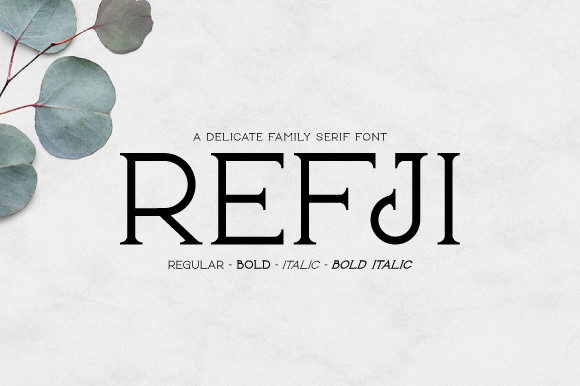
Step into a world of timeless elegance and creative expression with Refji Font, a bold and authentic serif font that will transform your designs into masterpieces. With its distinct personality and captivating curves, Refji Font is not just a font; it's an artistic journey that awaits your exploration.
As you delve into the depths of Refji's glyphs, you'll discover a font that exudes confidence and sophistication. Each letterform is meticulously crafted to create a visually striking impact, enhancing the readability and visual appeal of your texts. Refji Font is the epitome of readability, ensuring your messages are conveyed with clarity and precision.
Unleash your creativity and let Refji Font take center stage in your designs. Whether you're crafting captivating logos, designing elegant invitations, or composing captivating headlines, Refji Font will effortlessly elevate your creations. Its timeless appeal makes it the perfect choice for projects that demand a touch of sophistication and a dash of timeless charm.
But Refji Font is more than just a beautiful face. It's a versatile performer that adapts seamlessly to a myriad of design styles. From classic and traditional to modern and contemporary, Refji Font effortlessly blends into any aesthetic, adding a touch of elegance and uniqueness.
With Refji Font at your fingertips, you'll embark on a creative adventure where every project becomes a testament to your artistry. Experience the transformative power of Refji Font and let your designs speak volumes. Embrace the beauty of typography and let your creativity flourish.